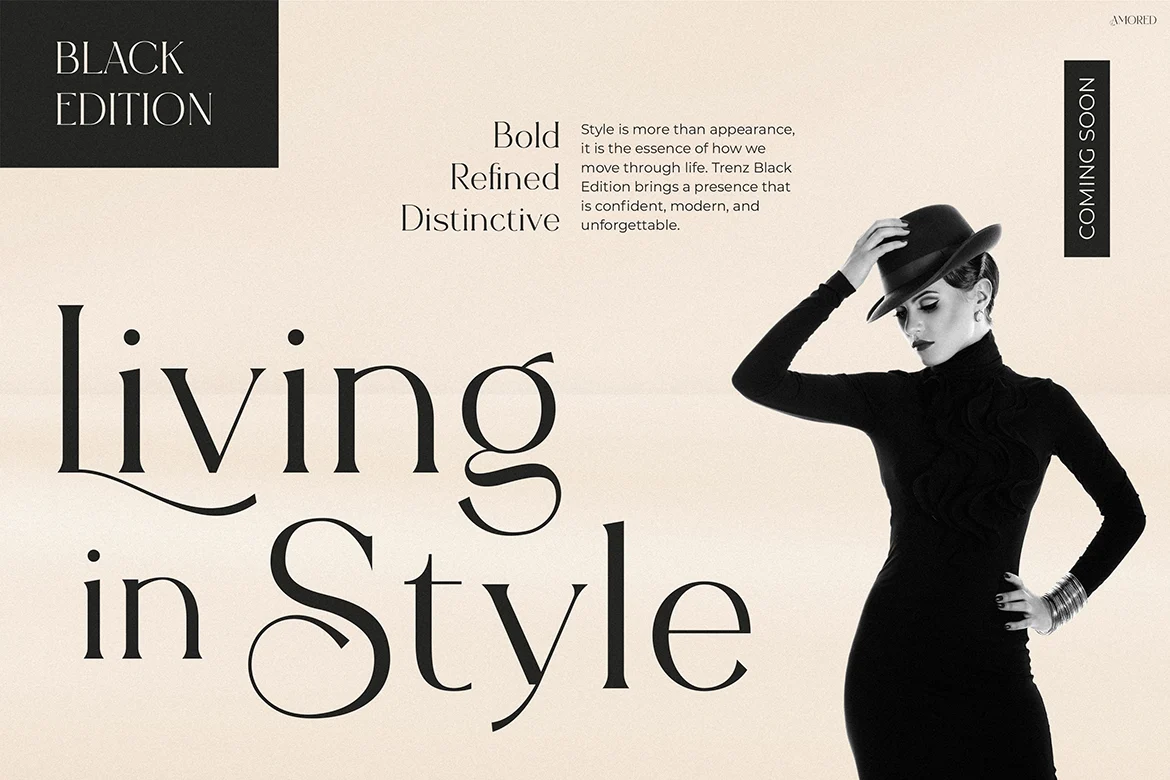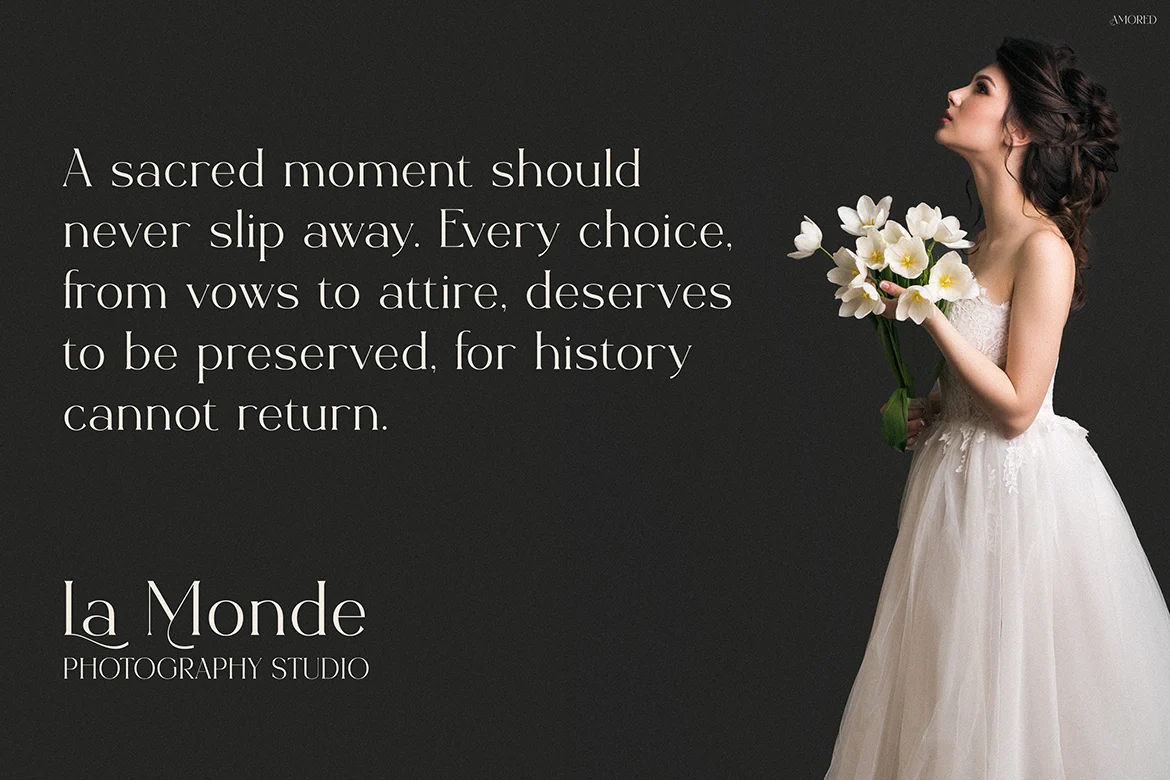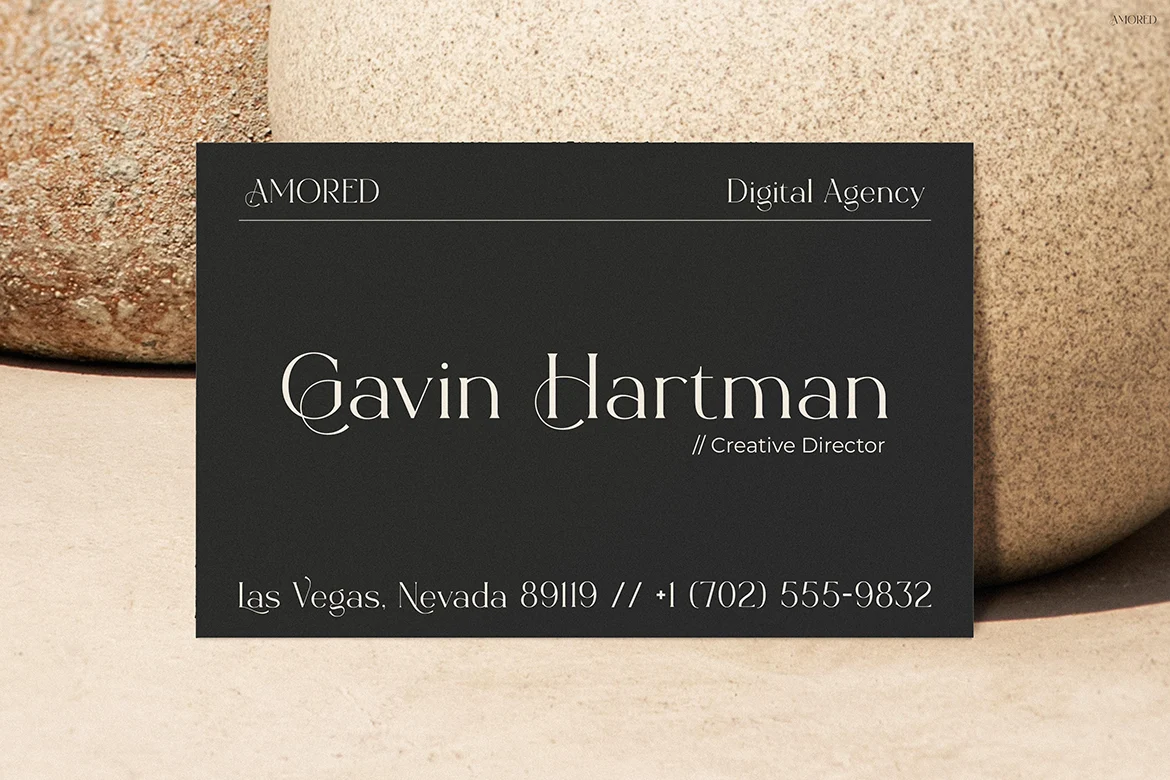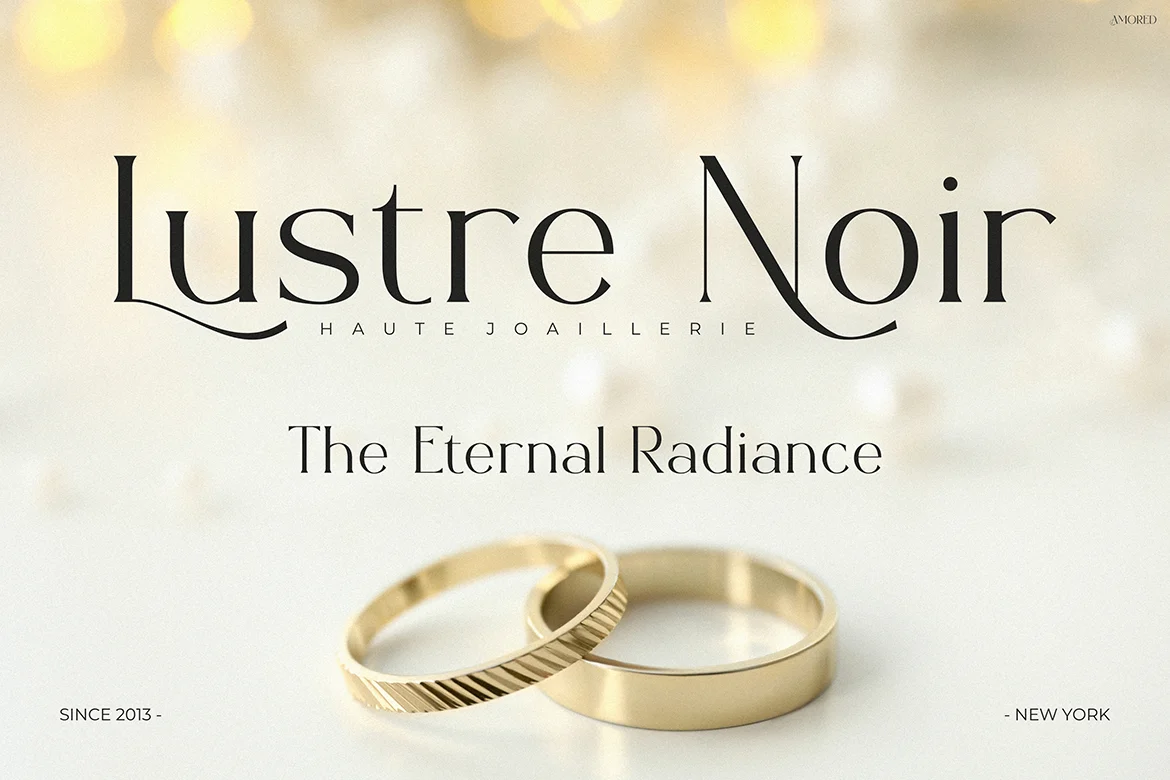
Amored – Elegant Font
Amored – Elegant Display Font
Amored is a high end-inspired display typeface designed with soft curves, refined proportions, and graceful contrasts. Its alternate uppercase letters bring a sense of individuality and artistry to every design, making it ideal for projects that need a romantic yet modern vibe. The font’s letterforms feel expressive and high-end, reflecting influences from editorial typography, fashion branding, and social media visuals.
With its versatile alternates and stylish ligatures, Amored creates a harmonious balance between contemporary sophistication and timeless elegance.
Perfect for branding, Instagram quotes, wedding invitations, elegant packaging, magazine headlines, and editorial spreads, Amored instantly elevates your visual identity. Designers can use it to convey romance, exclusivity, and polished style, giving any project the refined aesthetic of high-fashion and elegant branding. Whether you’re a creative entrepreneur, wedding photographer, or fashion label, Amored helps you deliver a captivating message that resonates emotionally and visually.
Key Features :
- Elegant display typeface with stylish alternate uppercase letters
- Distinctive soft curves and balanced contrast for high readability
- Perfectly crafted for fashion, editorial, elegant branding, and social media
- Adds romantic sophistication to invitations, packaging, and magazines
- Professional look that adapts seamlessly to digital and print formats